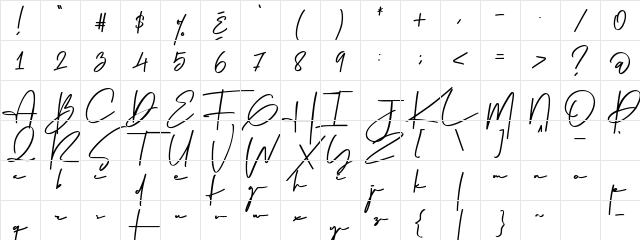
Winter Pen Regular Free Font
Winter Pen Regular
Designer: Abo Daniel 2020
Design Context for Winter Pen
Winter Pen is a composed and adaptable typeface that performs quietly and consistently across a wide range of design contexts.